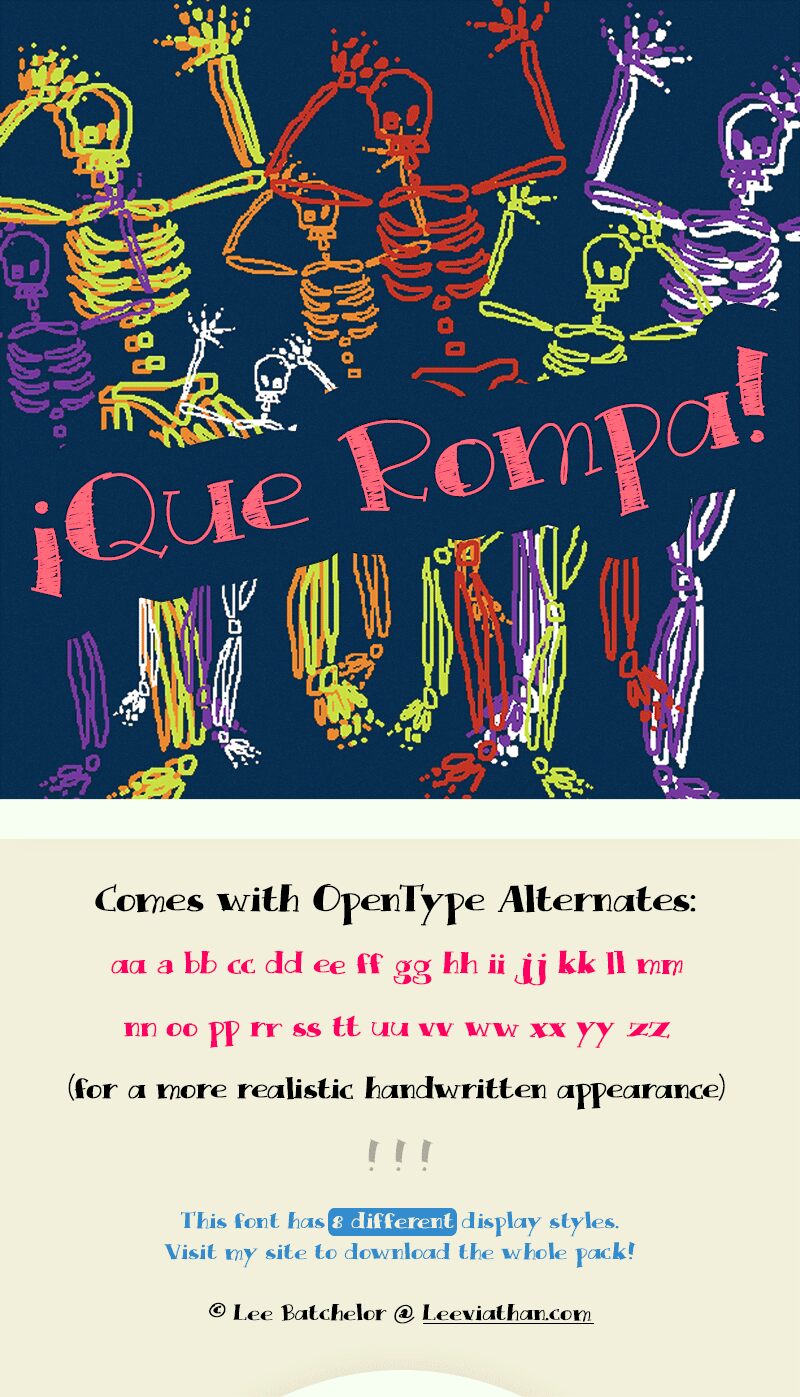
Que Rompa by Lee Batchelor is a free comic display font with a lively, off-kilter silhouette. Its letters swing between fine lines and broad black strokes, with sharp wedges and swollen curves changing shape from one character to the next. The uneven silhouettes look theatrical and unruly.
Comedy and noisy music suit its restless drawing, making it a strong fit for posters and event graphics. Food packaging and band merchandise can use the forms as part of an illustrated label or mascot design. In editorial design, it suits humorous section openers or cover lines with the rough timing of a hand-cut cartoon title.
The font includes OpenType contextual and stylistic alternatives.